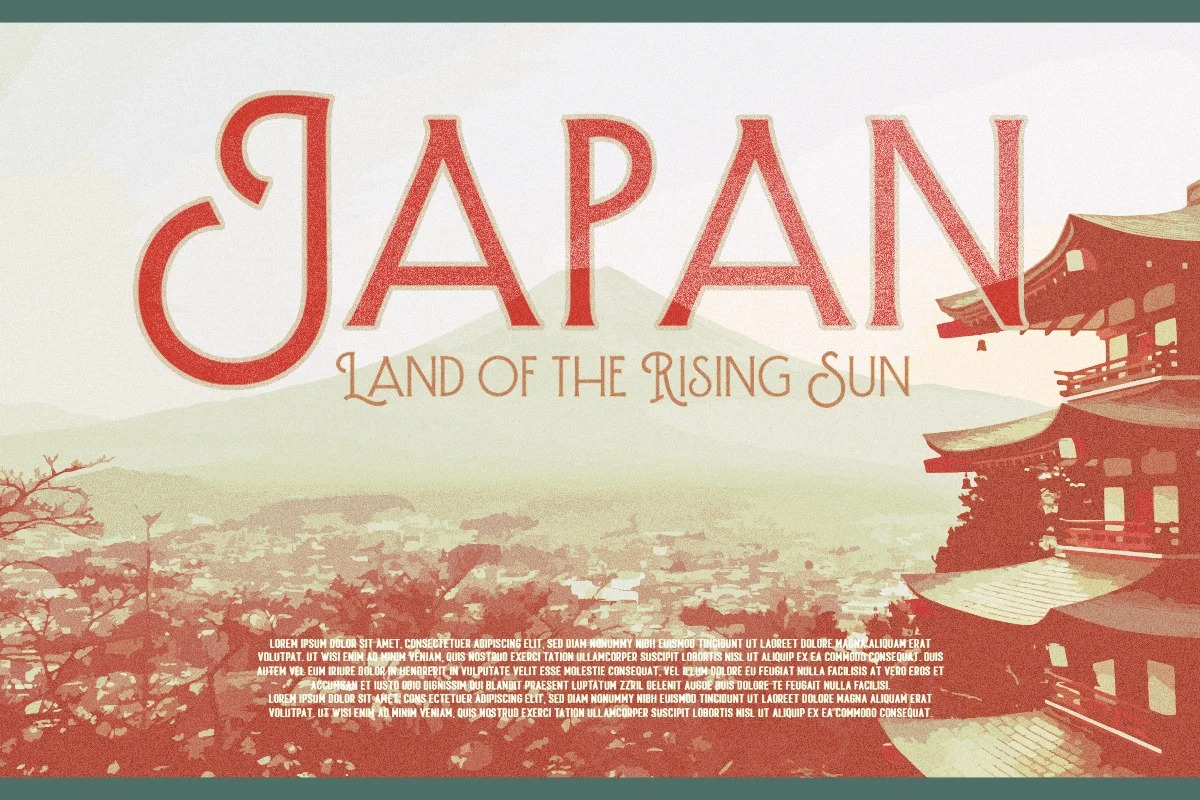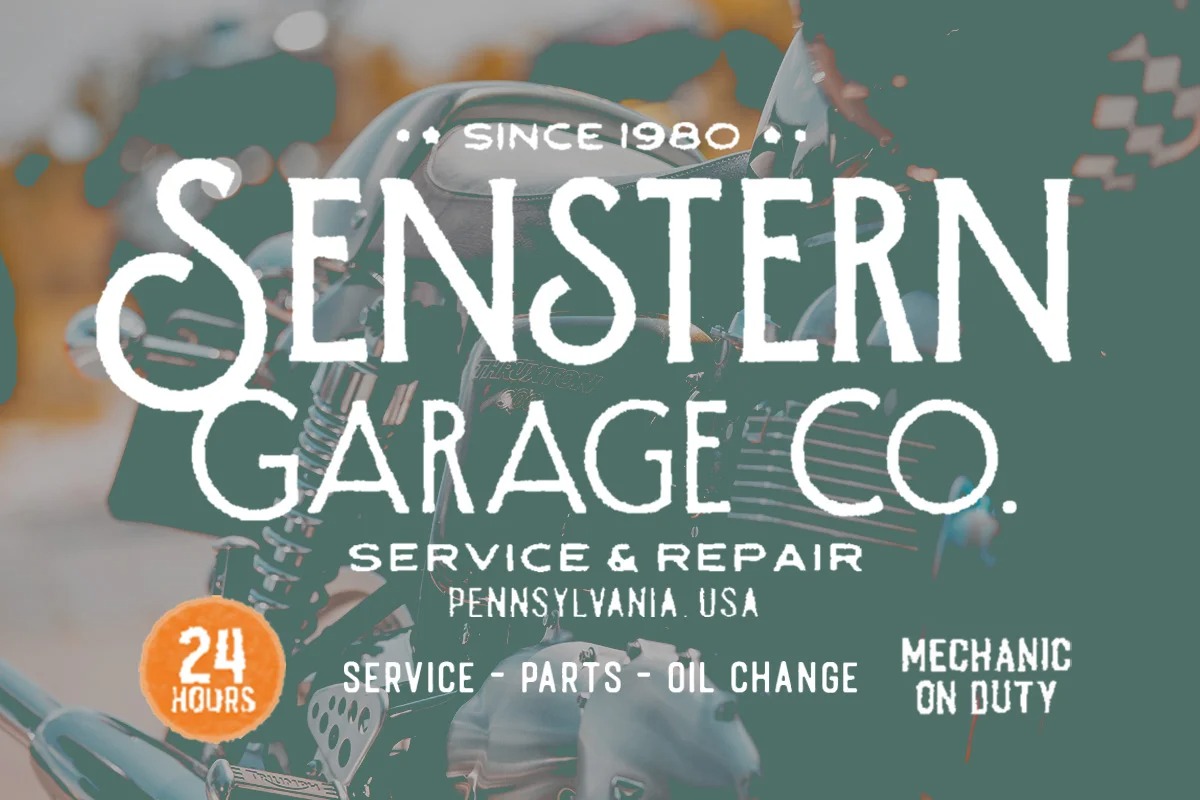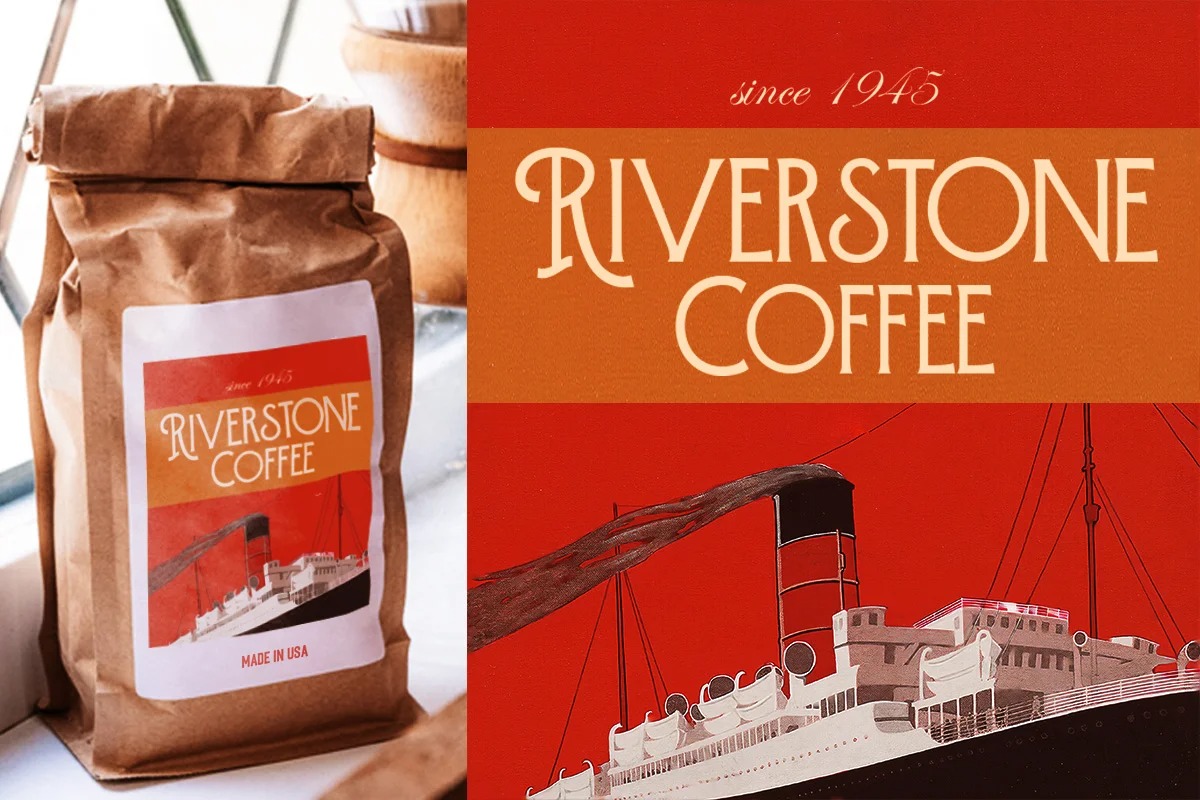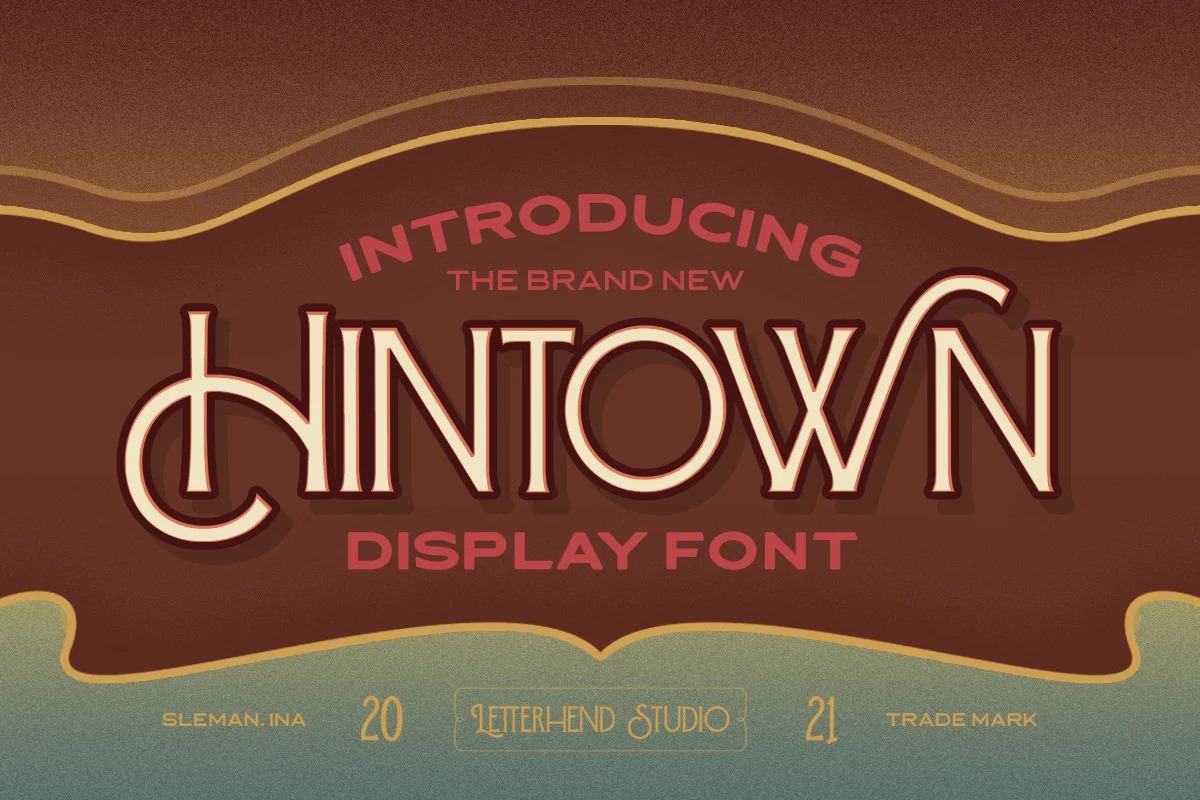
Hintown Font
Hintown Serif Font
It’s a condensed display typeface created by Letterhend Studio with the touch of nostalgic and vintage feel, inspired by art deco and 1900 signages. This font perfectly made to be applied especially in logo, and the other various formal forms such as invitations, labels, logos, magazines, books, greeting / wedding cards, packaging, fashion, make up, stationery, novels, labels or any type of advertising purpose.